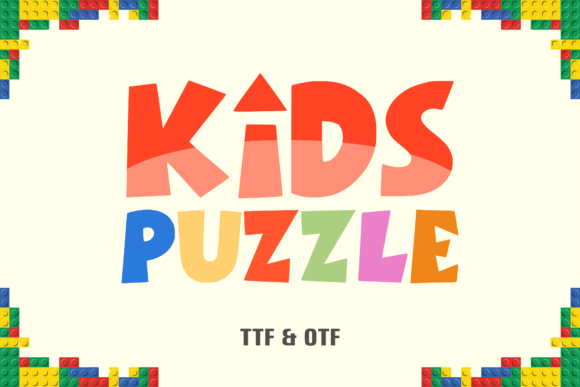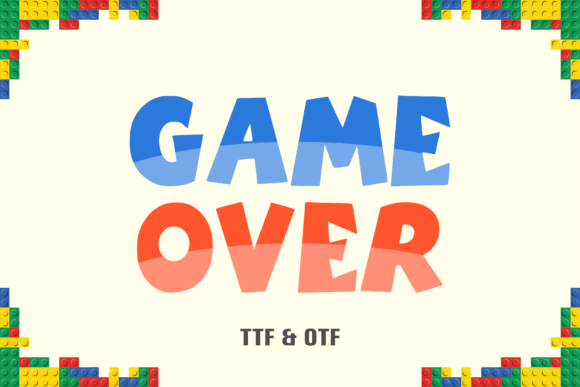
Introduction to Mini Rocket Font
Mini Rocket is an educational game font that brings fun and imagination to your projects.
With its cheerful style and appearance, this font offers hope for a variety of creative endeavors Let this font add a pop of color and aesthetic elements to your designs, suitable for everything from posters, stickers, comics, childrenโs books, and more.